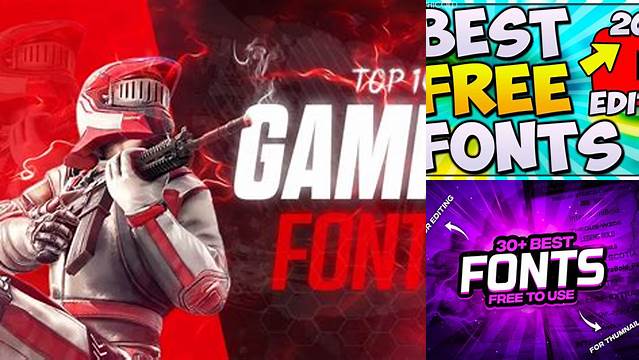
Cool Fonts For Thumbnails: Elevate Your Visual Game
Creating eye-catching thumbnails is essential for grabbing attention and boosting click-through rates. Choosing the right font is a crucial part of this process, as it can significantly impact how viewers perceive your content. In this article, we'll dive into the world of cool fonts for thumbnails, exploring various styles, their ideal uses, and how to make your thumbnails pop. Let's get started!
The Power of Font Choice in Thumbnails
Guys, have you ever stopped to think about how important fonts really are? In the wild world of online content, where attention spans are shorter than a TikTok video, your thumbnail is often the first impression you make. Your font choice is a silent salesperson, communicating your brand, the tone of your video, and ultimately, whether someone clicks or keeps scrolling. So, why does font choice even matter for your thumbnails? Well, it boils down to a few key reasons. First, it helps with brand recognition. When you consistently use the same font, or a family of fonts, viewers start to recognize your content at a glance. Think of it like a visual signature. Secondly, it enhances readability. A well-chosen font is easy to read, even at a small size, and over a busy background. Readability is extra important! Thirdly, it sets the tone. Is your video fun and lighthearted? A playful font can reflect that. Is it serious and informative? A more classic font might be better. Finally, fonts create visual appeal. A good font makes your thumbnail look polished and professional, instantly making your content look more appealing.
Choosing the right font can dramatically impact how your content is perceived. In a sea of thumbnails, yours needs to stand out. Let's go over a few key factors to keep in mind when choosing a font for your thumbnails. Consider your target audience. Are you creating content for kids, teens, or adults? Choose fonts that resonate with their style. Next, think about the tone of your content. Is it a tutorial, a vlog, a gaming stream, or a review? The font should match the content! Think of the background of your thumbnail. Some fonts work better over busy backgrounds than others. Simple, bold fonts often stand out the most. Finally, think about readability on different devices. Thumbnails are viewed on phones, tablets, and computers. Your font must be easily legible at a small size. Remember, the perfect font is one that is both visually appealing and communicates effectively, and that's what it all boils down to. You can check Google fonts, or other font providers to make your job easier. Experiment with different fonts and thumbnail designs to find what works best for you. With the right font, your thumbnail is sure to grab attention, and encourage clicks, and that's always a great thing.
Top Font Styles for Thumbnails
Okay guys, now let's get down to the good stuff: the fonts! Here are some popular font styles that work great for thumbnails, along with examples and tips on how to use them effectively.
1. Bold Sans-Serif Fonts
Bold sans-serif fonts are a go-to for a reason: they're super clean, easy to read, and make a strong visual statement. Think of fonts like Roboto, Montserrat, and Open Sans. These are all awesome choices. They're generally available for free, and they work perfectly for text over busy backgrounds. Their simplicity ensures that the text remains legible even at smaller sizes, which is essential for thumbnails. Their strong, straightforward appearance conveys a sense of professionalism and clarity, making them ideal for tutorials, educational content, and videos where you want to look trustworthy. To use these fonts effectively, try pairing them with bold colors that contrast well with your background image. You can also use them for the main title of your thumbnail, and then use a slightly less bold font for any secondary text. Make the contrast as important as you can; you can experiment with adding a stroke or a shadow to the text to make it stand out even more. The key is to keep it simple and readable, so that viewers can quickly grasp what your video is about.
For example, for a tutorial on 'how to make pancakes,' you could use a bold, sans-serif font for the title and use a bright yellow color to grab the eye, while also adding a subtle drop shadow to ensure the text pops against the background image of delicious pancakes. This font style is perfect for conveying information in a clear, concise way, so it's a great option if you want to emphasize clarity and impact.
2. Modern and Geometric Fonts
If you want a thumbnail that feels a little bit more modern and trendy, then modern and geometric fonts are where it's at! Fonts like Poppins, Bebas Neue, and Exo offer a unique aesthetic that is both eye-catching and stylish. These fonts often have clean lines, unique shapes, and a contemporary feel, making them perfect for content related to design, technology, and lifestyle. Modern and geometric fonts are fantastic for attracting a younger audience. The clean lines of these fonts create a sense of sophistication and creativity. They're all designed to be stylish and readable, so you can achieve that aesthetic. But, be mindful of the weight and design; a super-thin font can get lost in the thumbnail, especially on smaller screens. These fonts can instantly give your thumbnails a more high-end, polished look, which is very appealing. Use them with bold colors and interesting background images to create a thumbnail that's instantly shareable. You may even want to try a gradient in the background or the text itself!
For instance, if you're creating a thumbnail for a video about the latest tech gadgets, using a modern, geometric font in a vibrant color can immediately signal to viewers that your content is up-to-date and exciting. Try pairing these fonts with abstract backgrounds or high-quality product photos to really make them shine. This font style will help you in drawing in a specific audience and creating a strong visual identity.
3. Script and Handwritten Fonts
Do you want to give your thumbnail a more personal, friendly feel? Then script and handwritten fonts might be the perfect fit! Fonts like Pacifico, Caveat, and Dancing Script can give your thumbnails a more personalized, human touch. These fonts often have a flowing, elegant style that mimics handwriting, and can add a touch of personality and warmth to your thumbnails. They're perfect for vlogs, lifestyle content, and anything that you want to feel relatable and approachable. These fonts can be very effective at connecting with viewers on a more emotional level, making your content seem more authentic and friendly. However, be careful with this type of font, because readability can be an issue, particularly at smaller sizes. Always make sure your handwritten fonts are easily readable, or your message could be lost. For this reason, it's usually best to use these fonts for shorter titles or to highlight a keyword.
For example, if you're creating a thumbnail for a vlog about a travel adventure, using a handwritten font for the title, then you can create a sense of adventure and fun. To maximize the impact, ensure the background of your thumbnail is simple, and use a contrasting color to make your text stand out. Combine these fonts with imagery that evokes emotions and creates a sense of connection with your audience. These fonts can be very helpful if your goal is to build a strong personal brand and connect with your audience on a more personal level.
Selecting the right font is like choosing the perfect outfit: it depends on the occasion. Beyond the basic font styles, here are some extra tips to ensure your thumbnail fonts are on point.
1. Prioritize Readability
First, and foremost, readability should be your number one priority. Your thumbnail font should be easy to read at a small size, even when viewed on a mobile device. Avoid overly ornate fonts or fonts with thin strokes, as these can easily get lost. Make sure your font has high contrast against your background, by using a stroke or drop shadow to make it stand out. A readable font will guarantee that your message is delivered clearly.
2. Consider Font Weight and Style
When choosing a font, think about the weight and style. Bold fonts tend to grab attention more effectively, but they can also be a bit too much. Use a mix of weights to create visual interest. Experiment with different styles, such as italic or condensed, to add variety, but make sure they align with your overall design. A careful combination of weights and styles can help enhance the visual appeal of your thumbnail without affecting the legibility.
3. Contrast is Key
High contrast is absolutely essential for readability. Always make sure your font color contrasts well with your background. If your background is dark, use a light-colored font, and vice versa. Consider adding a stroke or shadow to your text to further enhance the contrast. Also, make sure your thumbnail looks good in both light and dark mode, so your audience will be able to read your thumbnail in any situation.
4. Font Pairing
Experiment with font pairings. You don't have to stick with just one font. Try using a combination of two or three fonts to create visual interest and hierarchy. Pair a bold headline font with a simpler font for your subheadings, and body text. Use font combinations that complement each other without clashing. Think about the mood you want to create. It is about balance, and not just about looks.
5. Test, Test, Test
The final piece of the puzzle is testing. Once you've designed your thumbnail, test it on different devices to make sure it looks good everywhere. Ask for feedback from your friends, and make adjustments as needed. Don't be afraid to iterate. Try different fonts and color schemes, and see what performs best. A/B testing can provide you with insights that help you find the perfect font combination for your content.
Choosing the perfect font for your thumbnails is a crucial step. With the right font, you can increase your click-through rates, create a brand, and elevate your content. Make sure you take into account the information above, and you'll be well on your way to creating thumbnails that grab attention and deliver your message effectively. Have fun experimenting with different font styles and designs, and let your creativity shine! Now go create some amazing thumbnails!